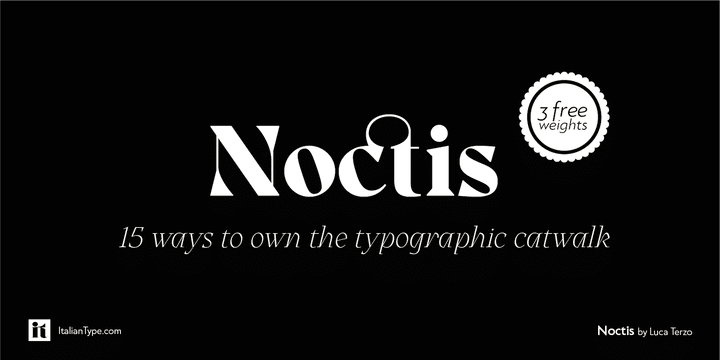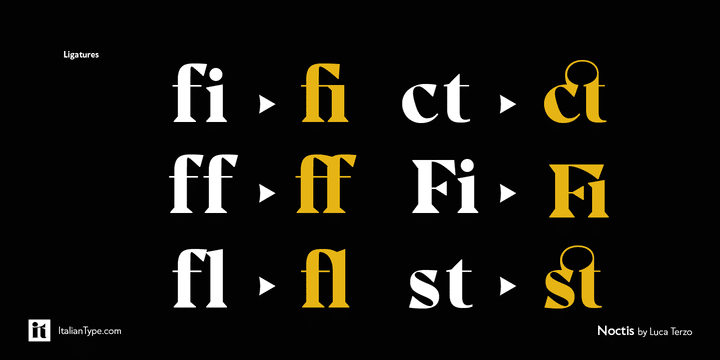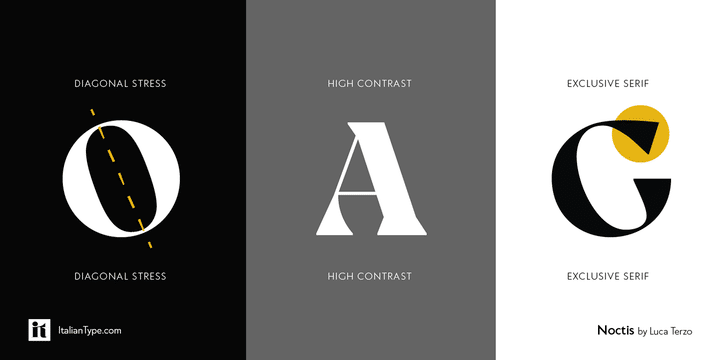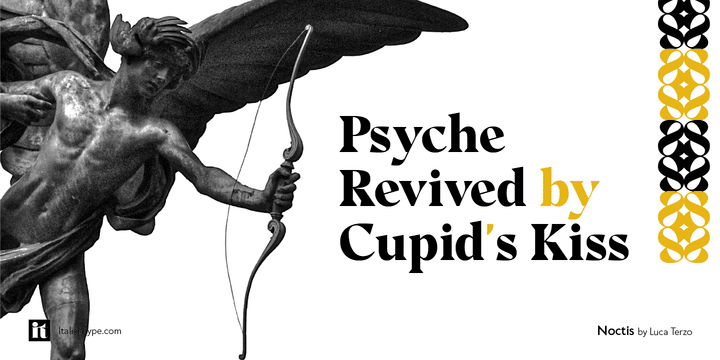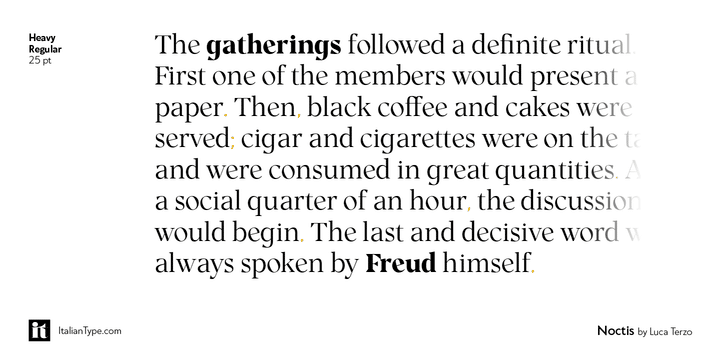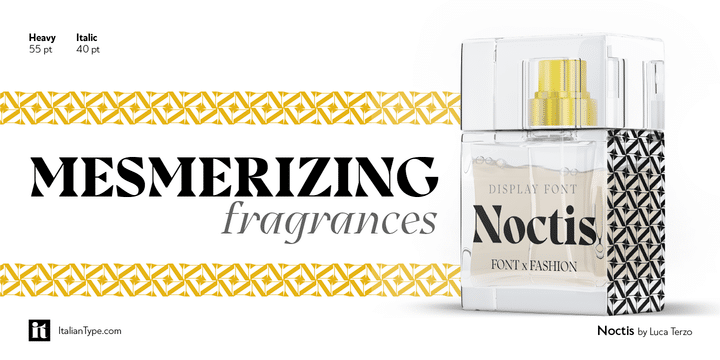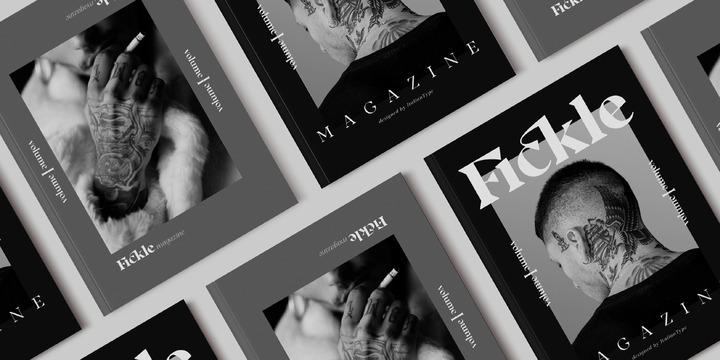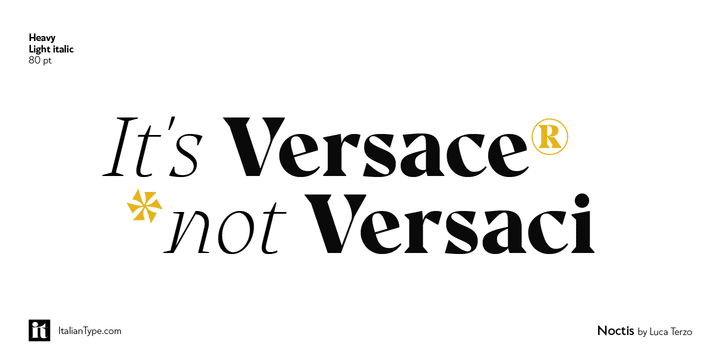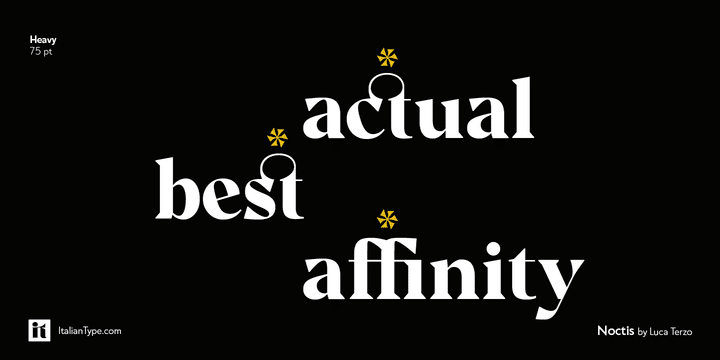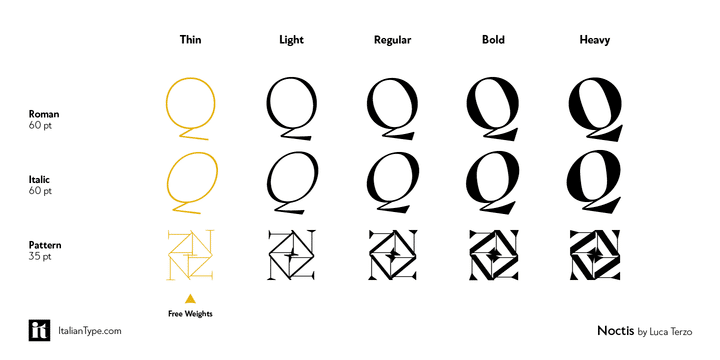
Noctis Serif Font
Noctis was originally born as a single weight display typeface, designed by Luca Terzo who took inspiration by the unusual wedge serifs of Aldo Novarese’s 1972 typeface for H. Berthold A.G., Primate. The design was developed by the Italian Type team into a full family of five weights from thin, each with its own true italic, and with a complementary set of decorative patterns.
The strong Didonesque contrasts make this typeface both impressive at display sizes and easily readable in text size, while the sharp shapes of the triangular serifs and the distinctive letter shapes show their strength in logo design and impressive editorial use. Inspired by the elegant, self conscious and over-the-top aesthetics of Italian fashion scene of the eighties and nineties, Noctis finds its strength in its strong textural nature, that is explored in the Noctis Texturae subfamily, where each letter is used as a tile to produce seamless patterns that can be used to extend the branding capabilities of Noctis.
Noctis features an extended latin character set of 481 glyphs covering over 190 languages, and includes advanced open type features like standard and discretionary ligatures, positional numerals, stylistic alternates and case sensitive brackets. Mixing versatility and personality, Noctis is ready to be like a top model on the design catwalk, making your projects looking classic but contemporary, finely tuned but assertive, and elegant as the best Italian luxury fashion.